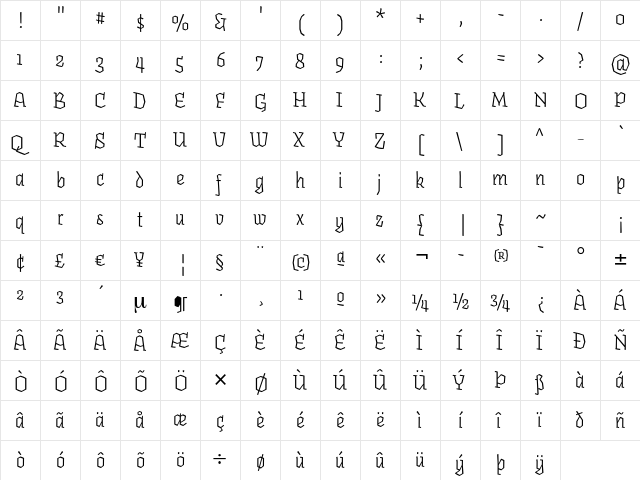
Fakir Italic
Design Context for Fakir Typeface
Fakir takes a measured approach to typography — its balanced proportions and neutral character make it a reliable workhorse for both digital and print work. The slanted form adds forward momentum and visual energy.
Pro Tip: Use Fakir for emphasis, pull quotes, and subheadings where its slanted energy can add rhythm to the layout.